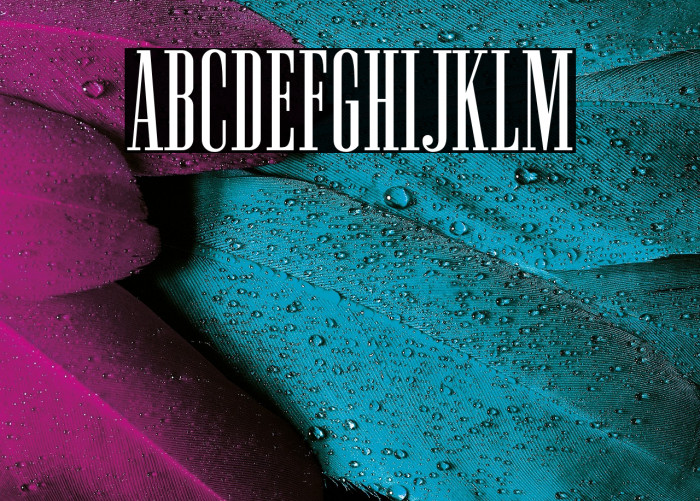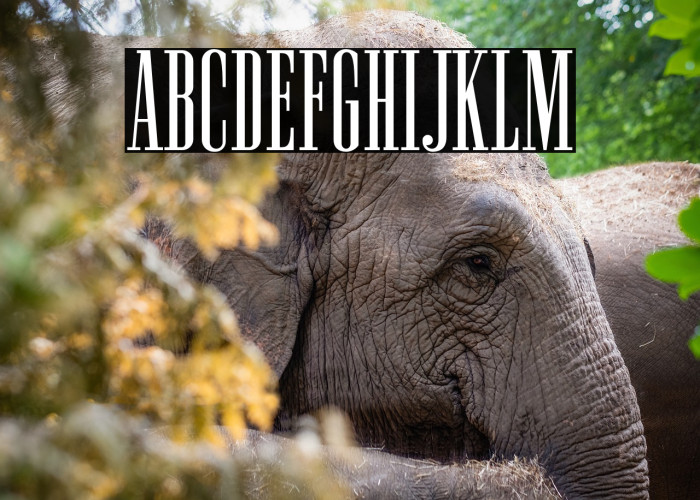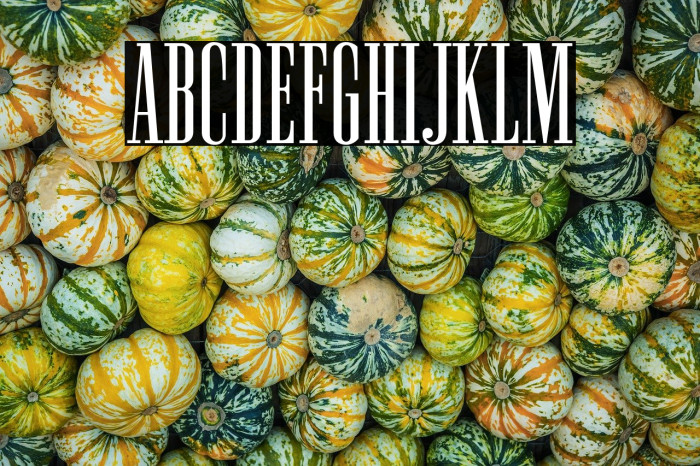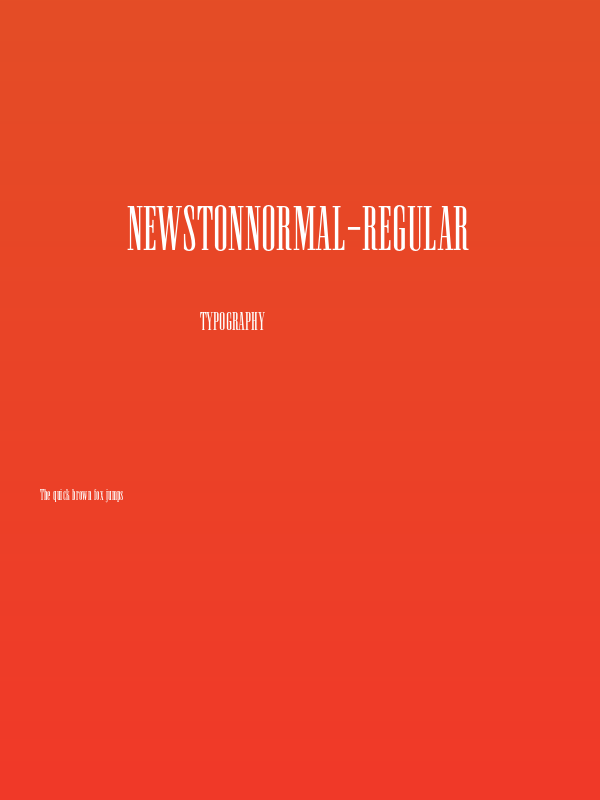
NewstonNormal-Regular Font
NewstonNormal-Regular Description
This font features a tall, narrow design with high contrast between thick and thin strokes, giving it a sophisticated and elegant appearance. The serifs are pronounced and sharp, adding a classic touch to the overall modern style. The uppercase letters are particularly striking, with their elongated forms and vertical emphasis. The lowercase letters maintain a consistent style, complementing the uppercase with their own refined shapes. Numbers and punctuation follow the same design principles, ensuring a cohesive look across all characters. This font is well-suited for projects that require a touch of elegance and formality.
| Proposed Projects | Ideal for luxury branding, editorial design, fashion magazines, and formal invitations. |